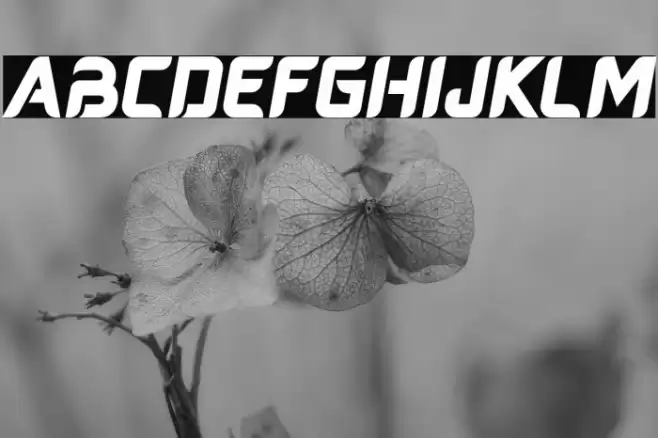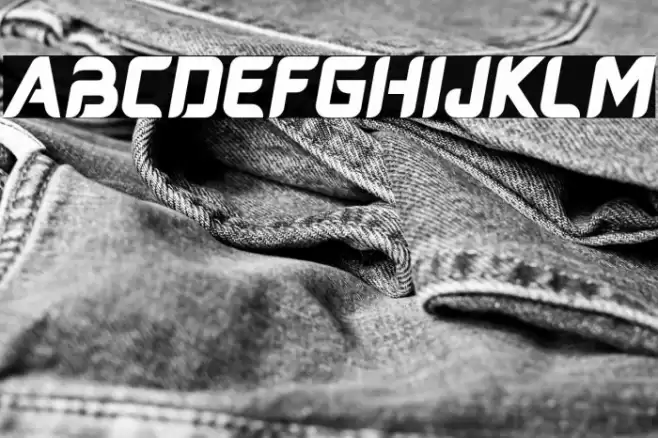
Averus Font
Averus Description
This font features a bold, modern design with a distinct slant, giving it a dynamic and forward-moving appearance. The characters are wide and have a strong presence, making them suitable for impactful headlines. The uppercase letters are particularly angular, with sharp edges and a futuristic style. The lowercase letters maintain the same boldness, with a slightly more rounded approach, offering a nice contrast to the uppercase. The numbers are consistent with the overall style, ensuring readability and uniformity. Special characters are designed to match the bold and modern aesthetic, making this font versatile for various applications.
A bold, slanted, and modern font with a dynamic and futuristic style from Uncategorized fonts.
- Font: Averus
- Proposed Projects: Ideal for sports branding, tech-related designs, dynamic posters, and modern advertising campaigns.
- Width: Expanded